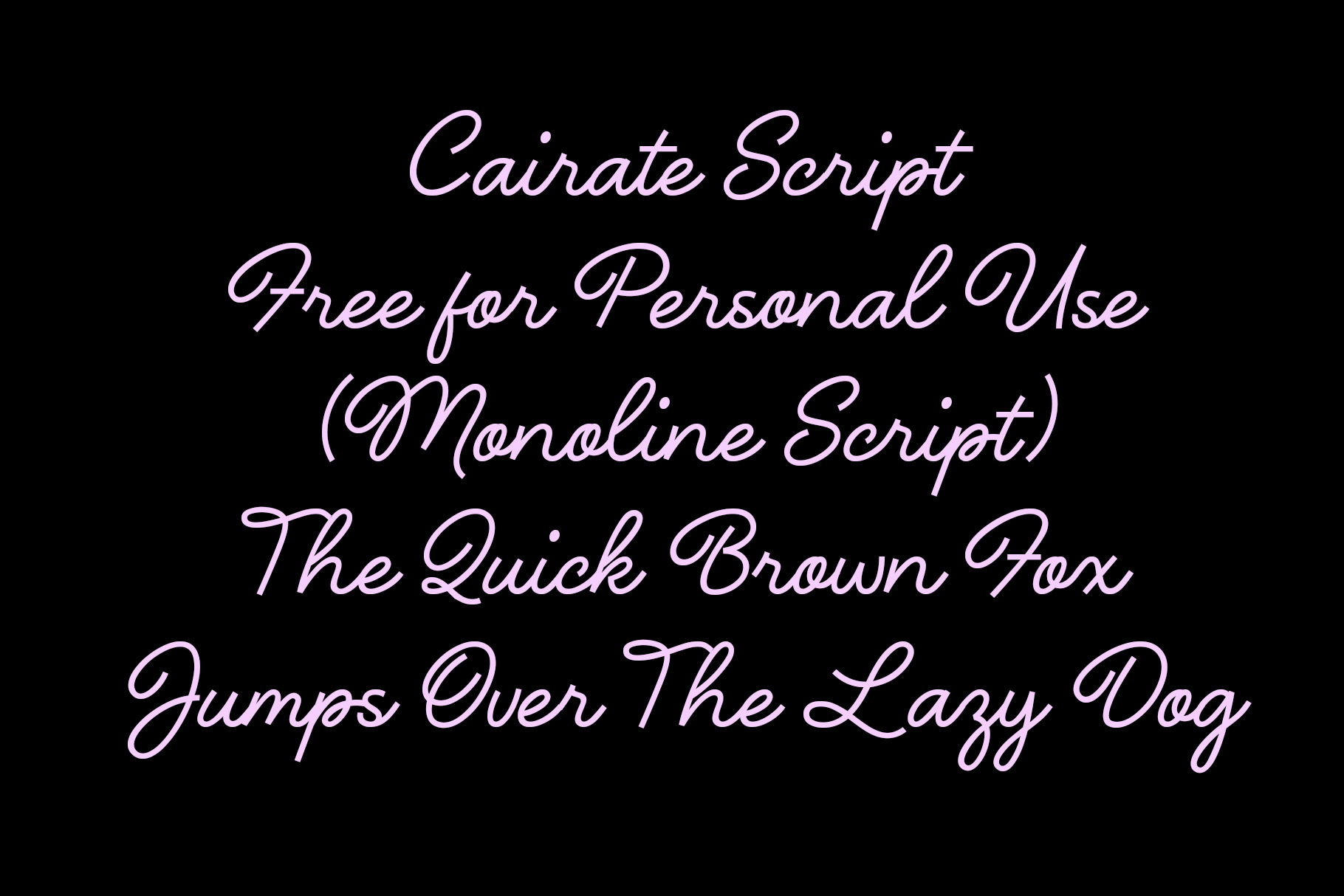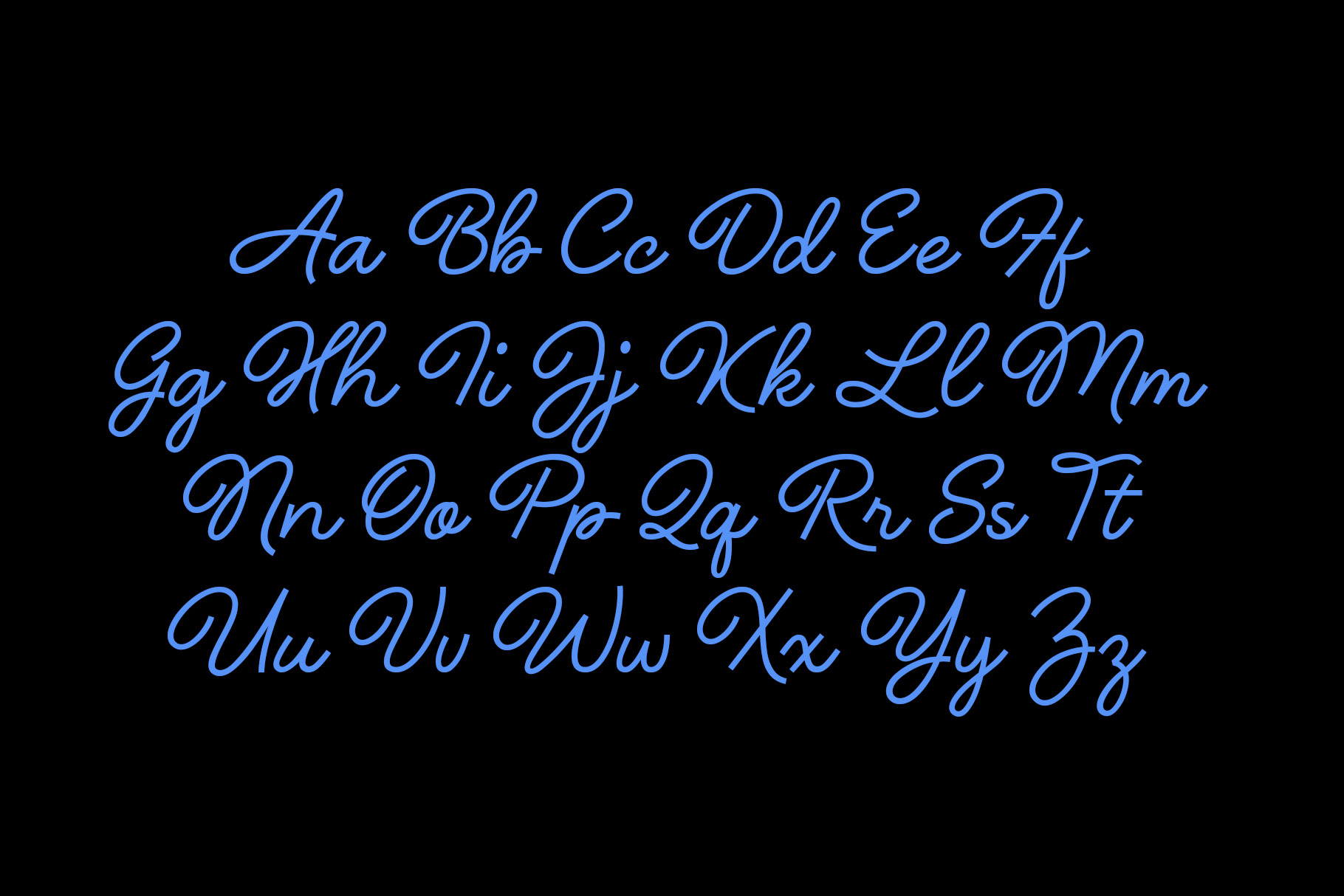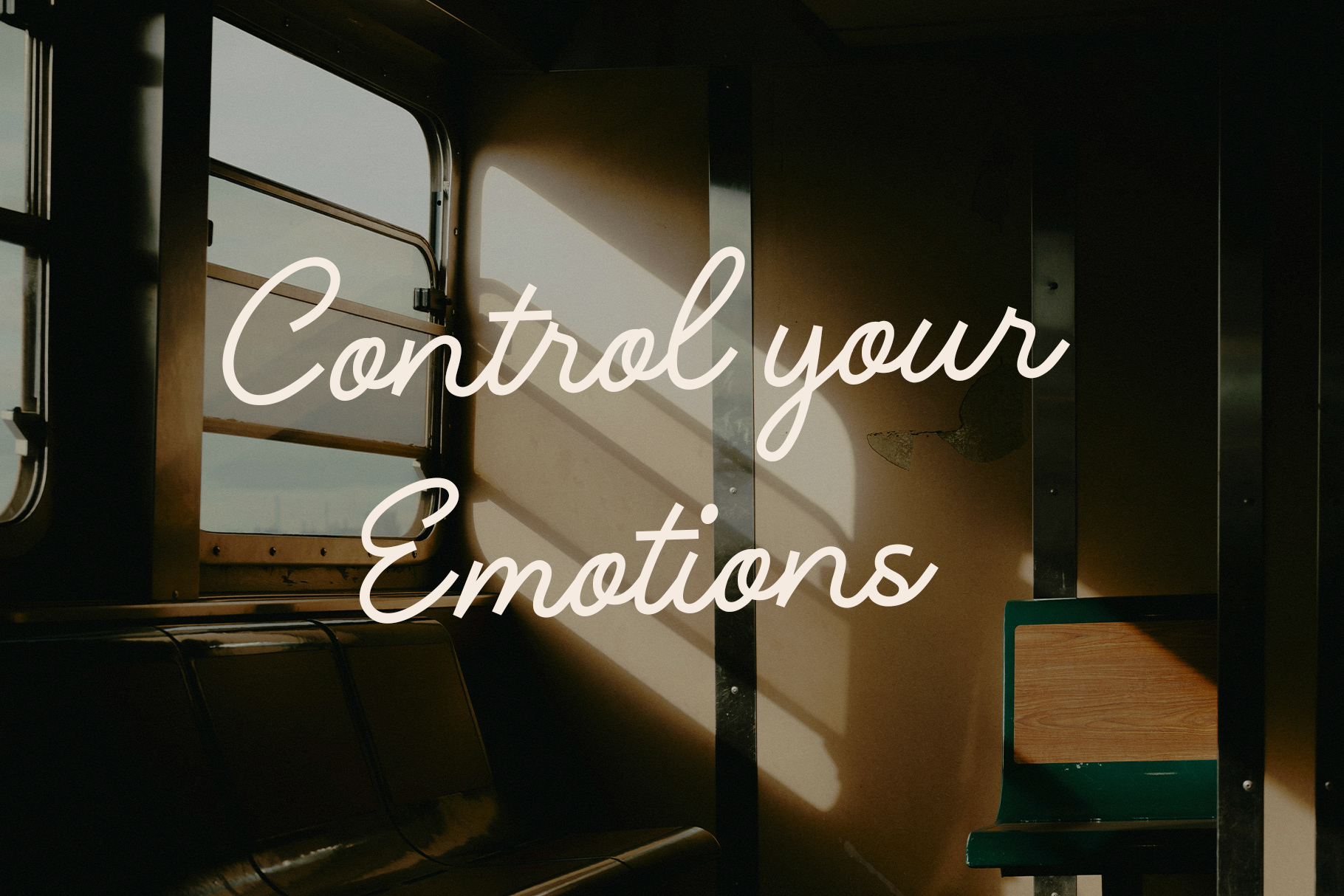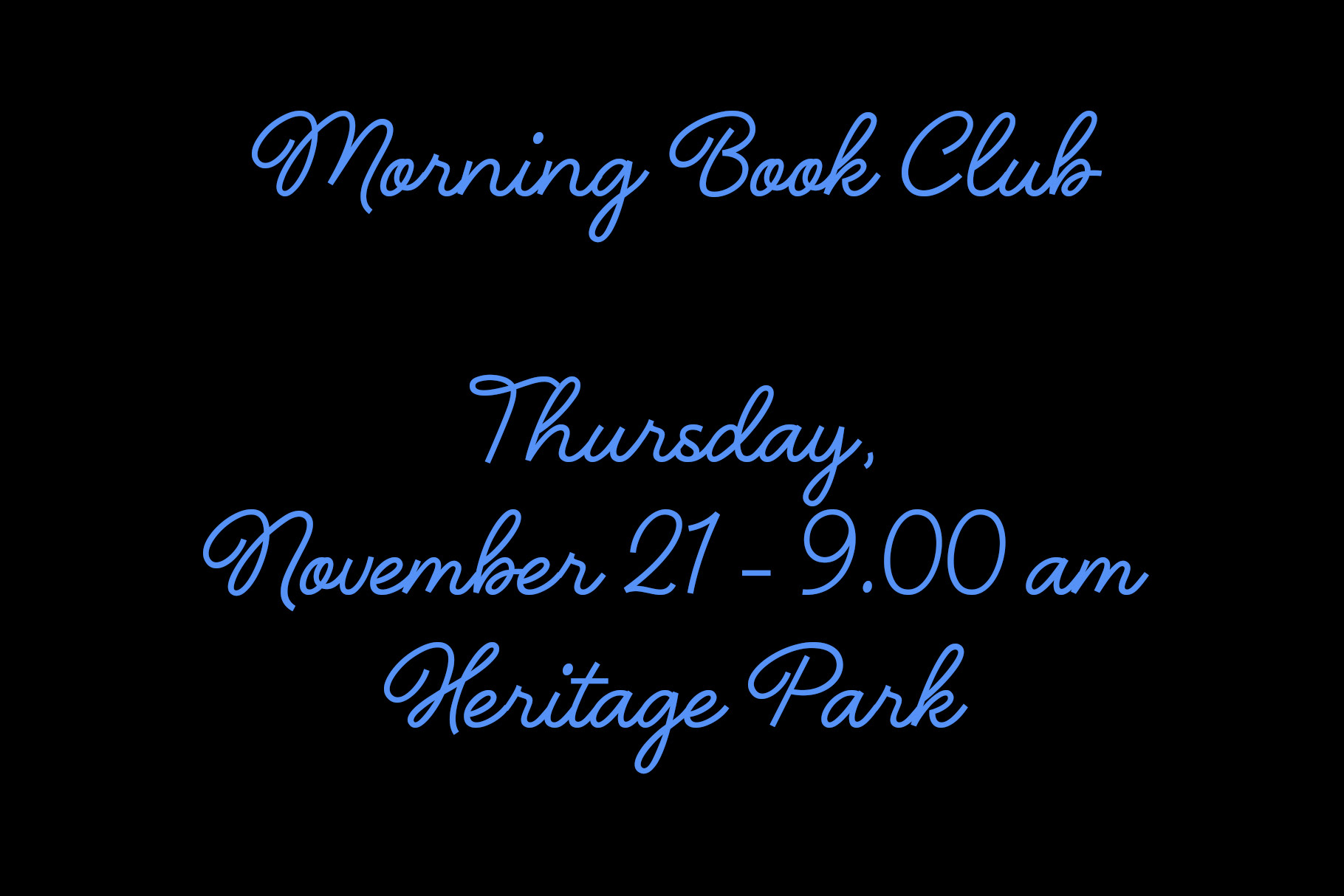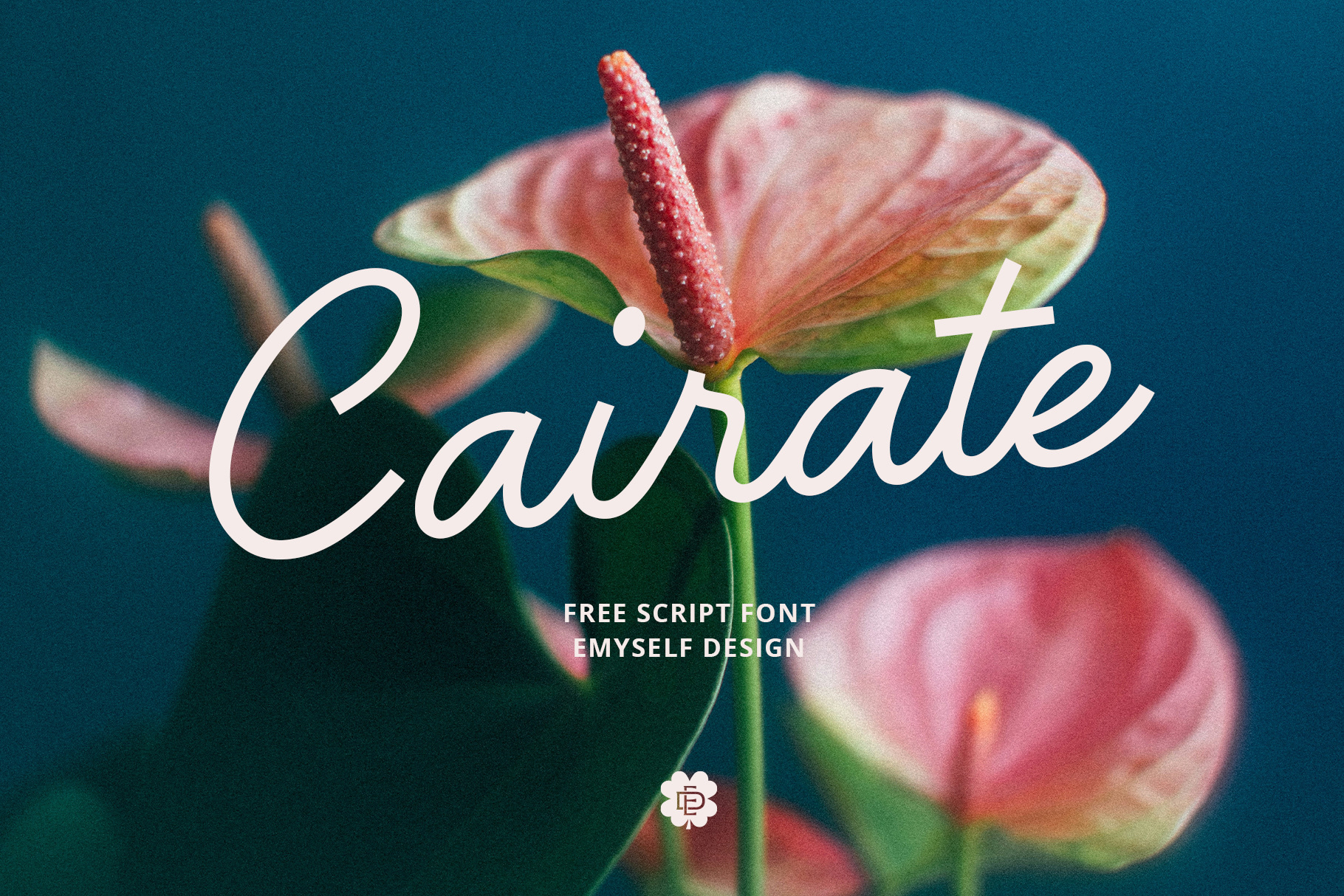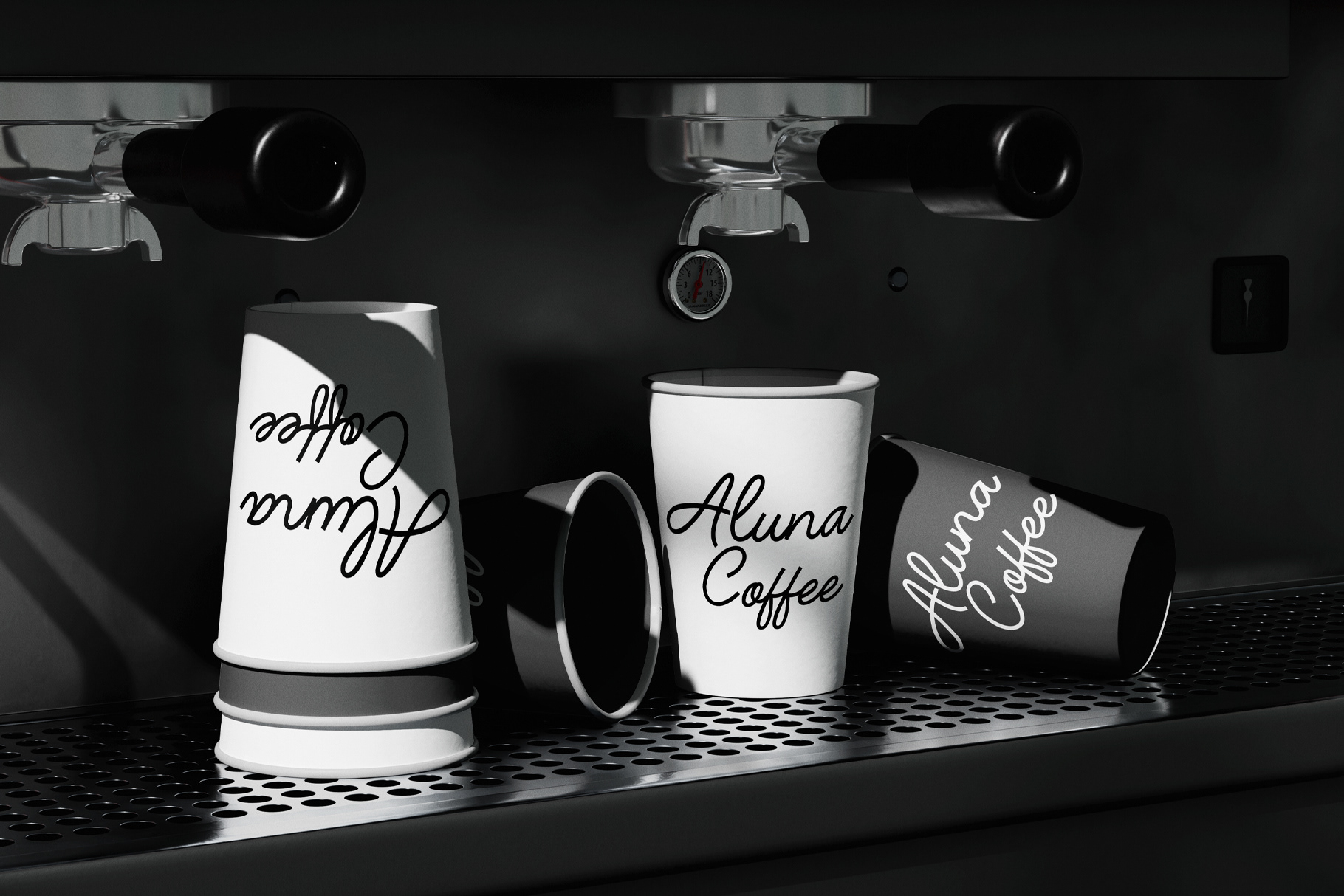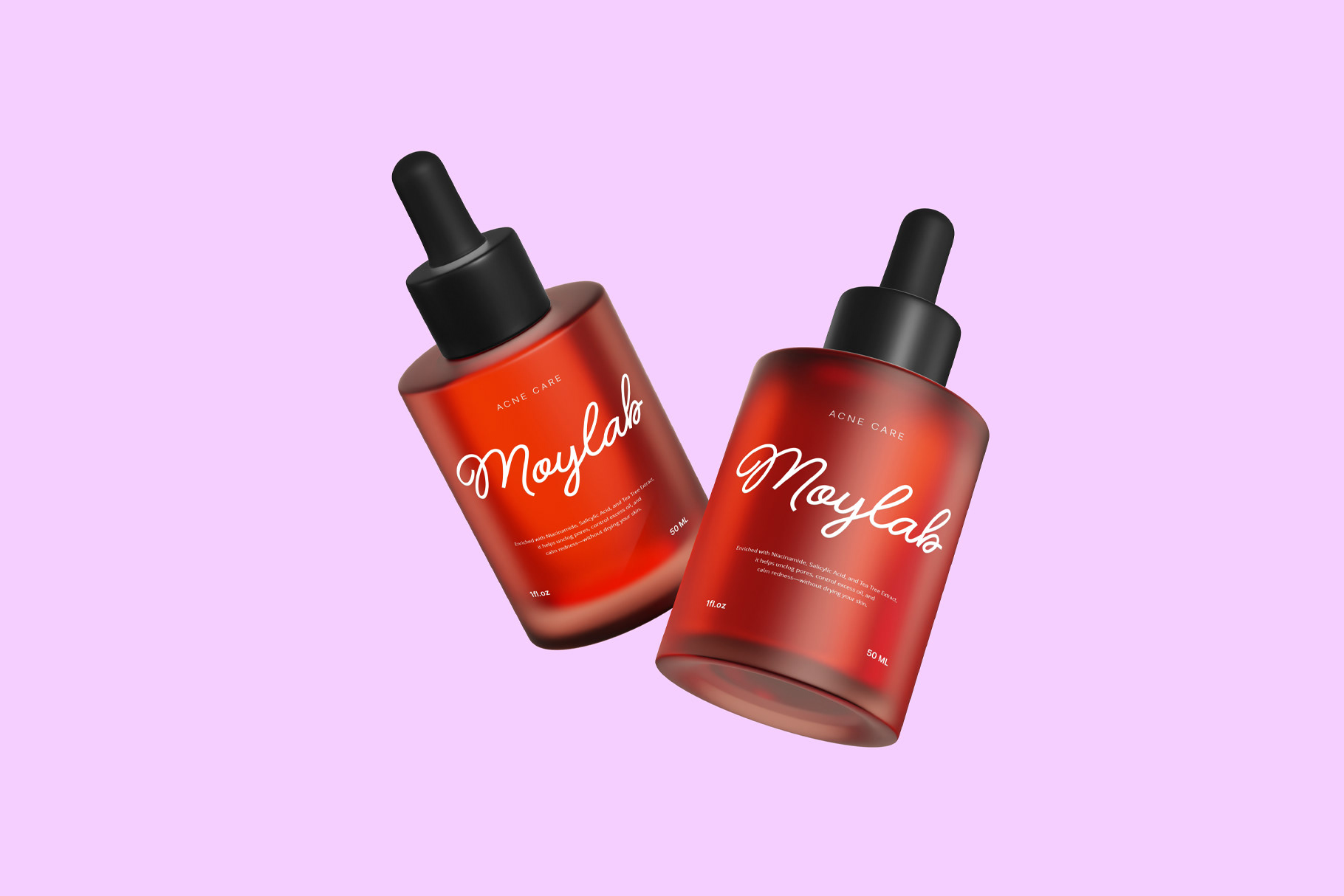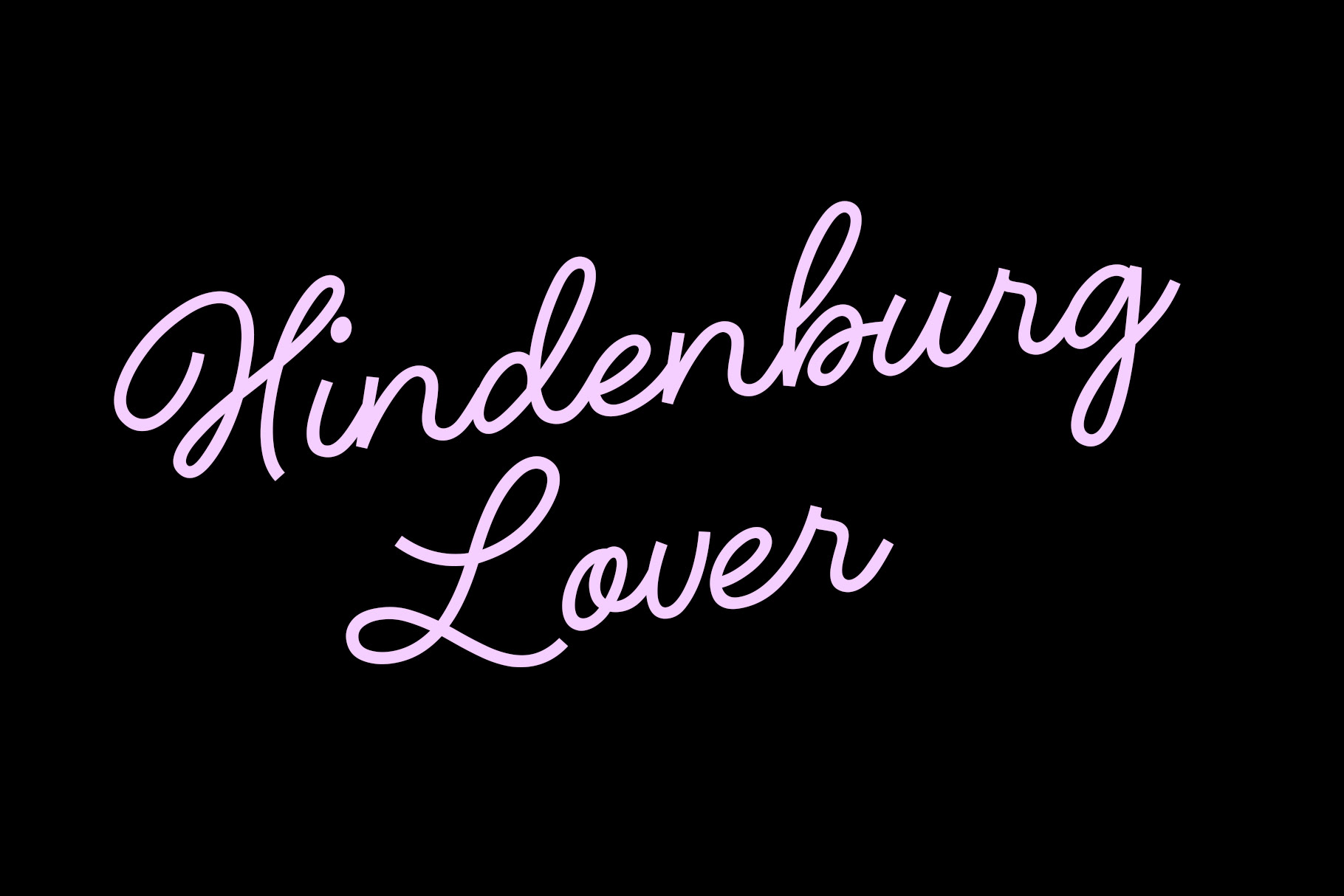
ED Cairate is a monoline script font. This typeface embodies a smooth and elegant flow, making it perfect for personal projects such as invitations, quotes, signatures, and branding mockups.Its clean and balanced strokes bring a timeless, handwritten charm to your designs while maintaining easy readability.